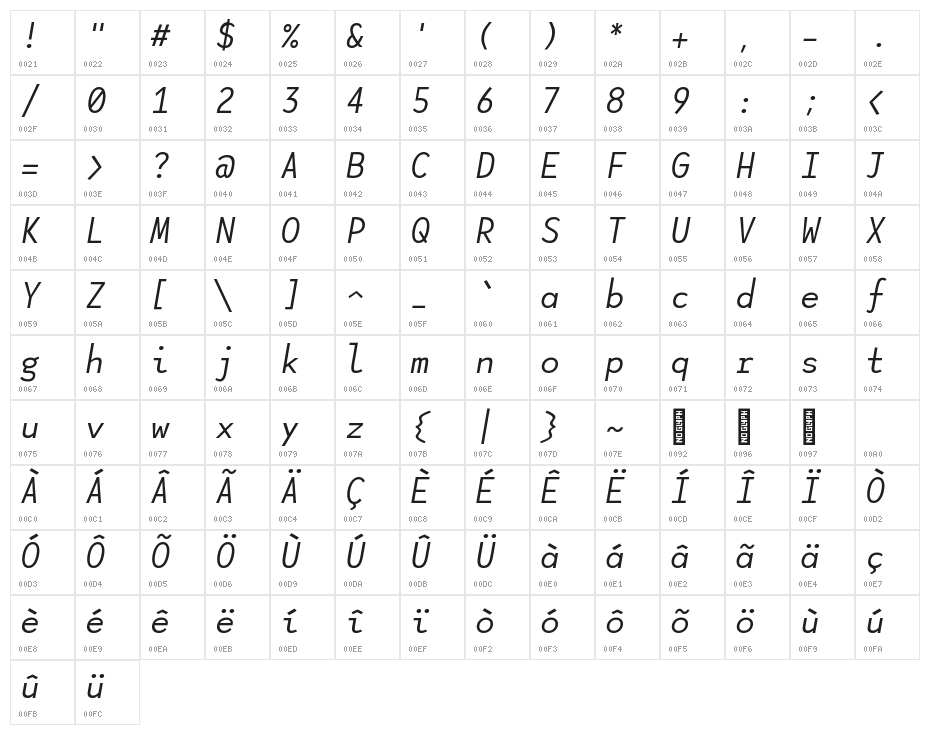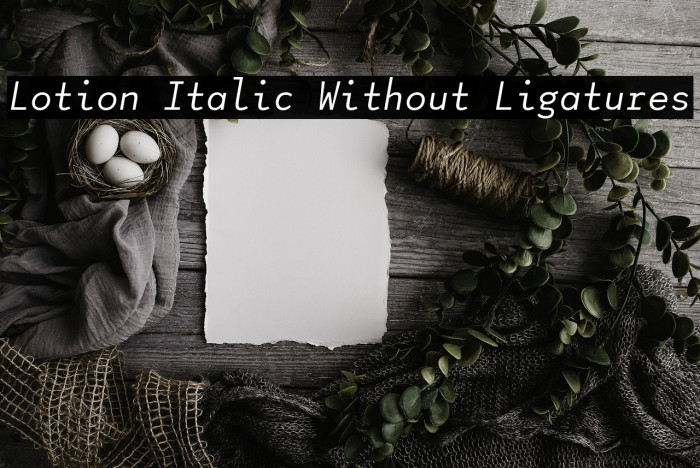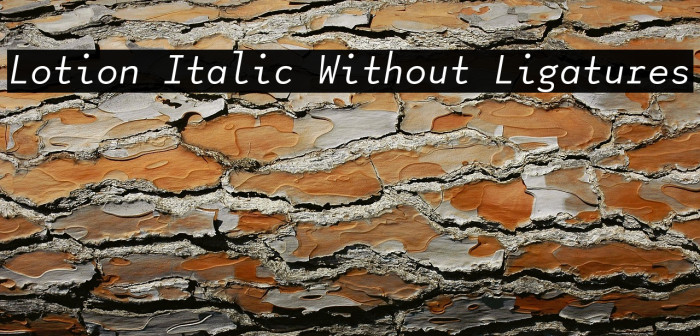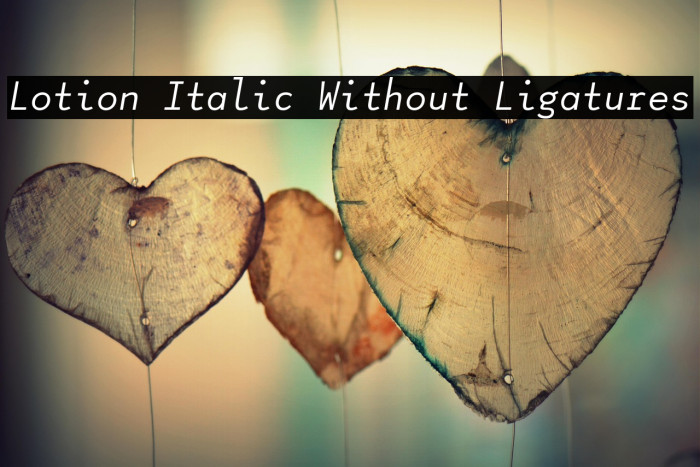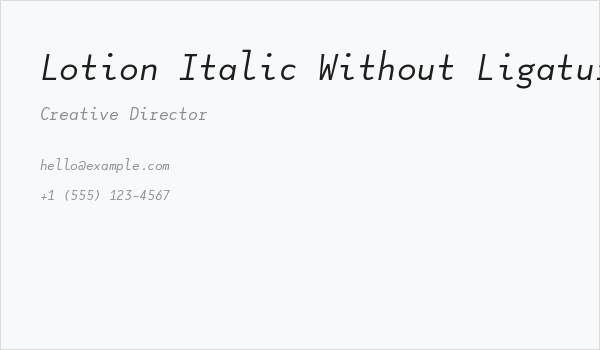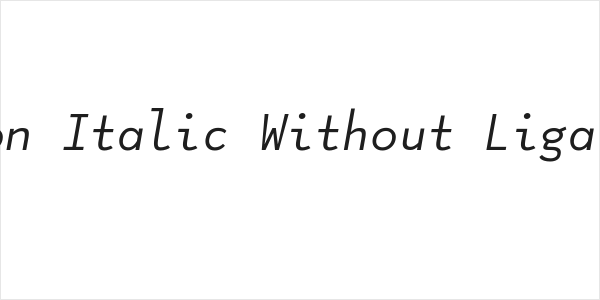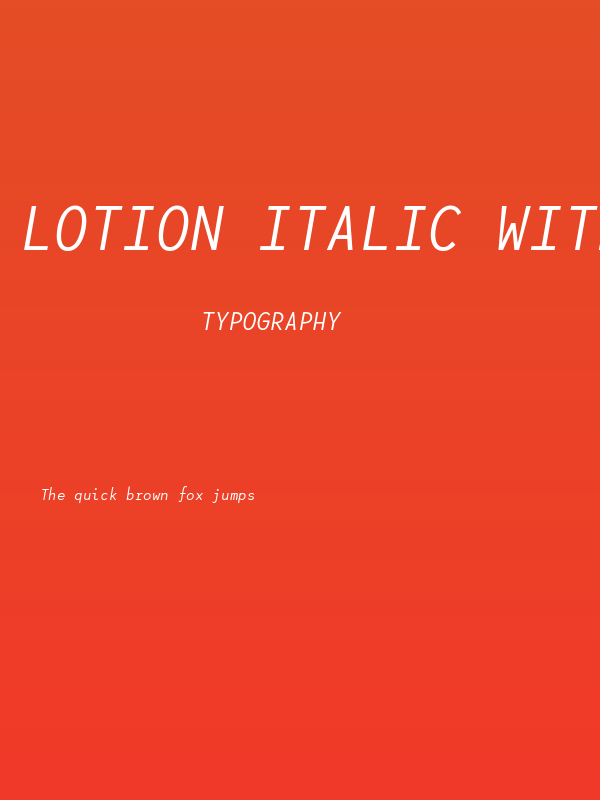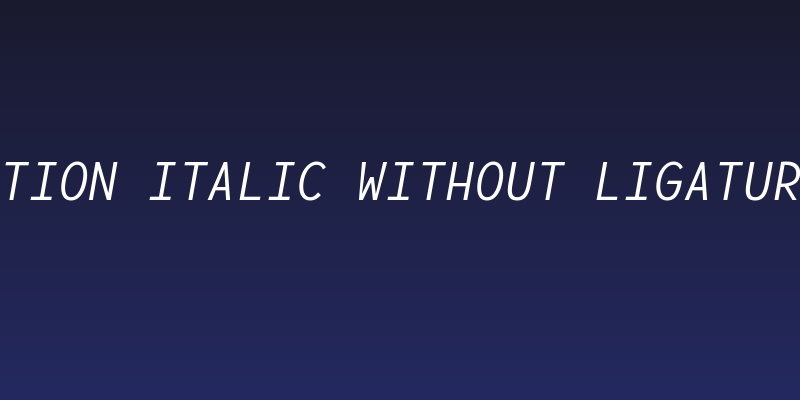
Lotion Italic Without Ligatures Font
Lotion Italic Without Ligatures Description
This font features a clean and modern italic style with a slight slant, giving it a dynamic and fluid appearance. The characters are well-defined with a consistent stroke width, providing a uniform look across both uppercase and lowercase letters. The numerals are clear and easy to read, maintaining the same slanted style as the letters. Special characters are included, matching the overall aesthetic of the font. The absence of ligatures ensures that each character stands independently, enhancing readability and versatility in various design contexts.
| Proposed Projects | Ideal for branding, editorial design, and digital interfaces where a modern and dynamic look is desired. |